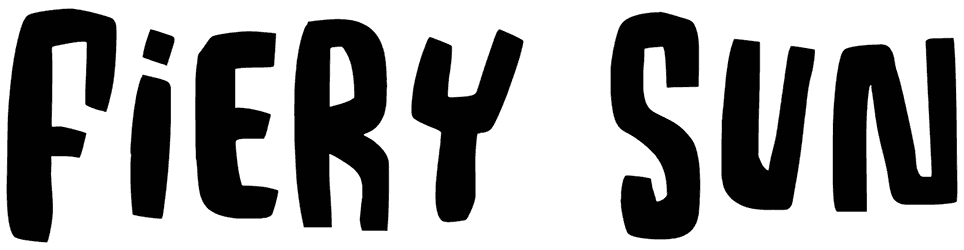
Fiery Sun Font
Fiery Sun is a graffiti font that creates a sense of a playful design with a distinct childish style across the page. This cartoon font does not include small letters and numbers and is only suitable for designing book covers, short text on posters, and summer festival banners.
The intimate and youthful touch of this font can bring happiness to any project and cause the release of a happiness and excitement vibe in every viewer.